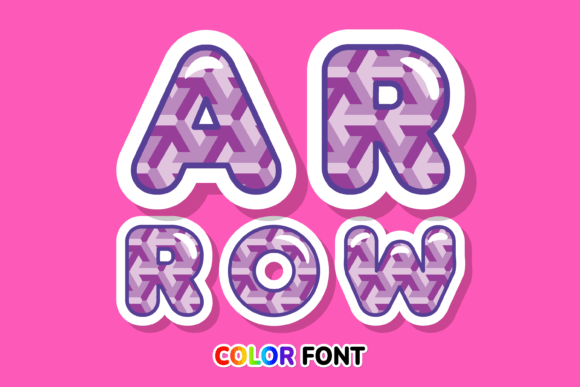
The Ultimate Guide to Arrow Font: A Colorful Design Essential
I still remember the design project that led me to discover the amazing Arrow Font. I was working on a custom illustration for a client, and I needed a font that would add a playful touch to the design. After hours of searching, I stumbled upon Arrow Font, and it instantly became my go-to choice. The vibrant colors, sleek design, and versatility of this font made it perfect for my project. In this article, I’ll share my experience with Arrow Font, its features, and how to make the most of it in various design platforms.
An Honest Review of Arrow Font
What I Love About Arrow Font ✨
- 💥 Vibrant colors: Arrow Font comes in a range of stunning colors that add a pop of fun to any design.
- 🎨 Customizable: With OpenType features, glyphs, and stylistic alternates, you can experiment with different styles to match your design.
- 🖌️ Perfect for DIY crafts: Arrow Font is ideal for crafters who want to add a professional touch to their projects.
While Arrow Font is an amazing design tool, there are a few limitations to keep in mind:
- ⚠️ Requires some learning curve: To get the most out of Arrow Font’s features, you may need to familiarize yourself with OpenType features and glyphs.
The Designer Inspiration Behind Arrow Font
Arrow Font was designed with creatives in mind. The designer aimed to create a font that would add a pop of color and fun to any design. Inspired by the world of art and craft, Arrow Font combines playfulness with sophistication, making it perfect for a wide range of projects.